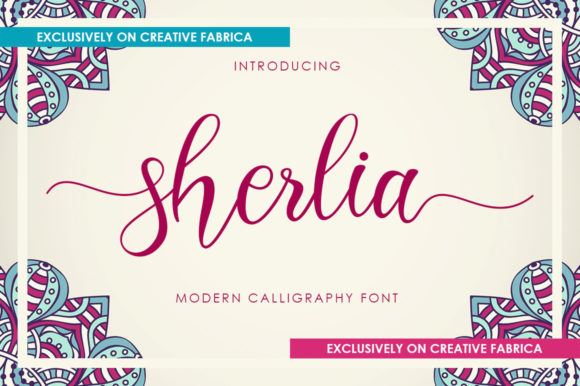
Sherlia Script Font
About Sherlia Script Font
Sherlia Script is a delicate and elegant handwritten font. Its distinct and well balanced letters make this font a masterpiece. This font is PUA encoded which means you can access all of the glyphs and swashes with ease!